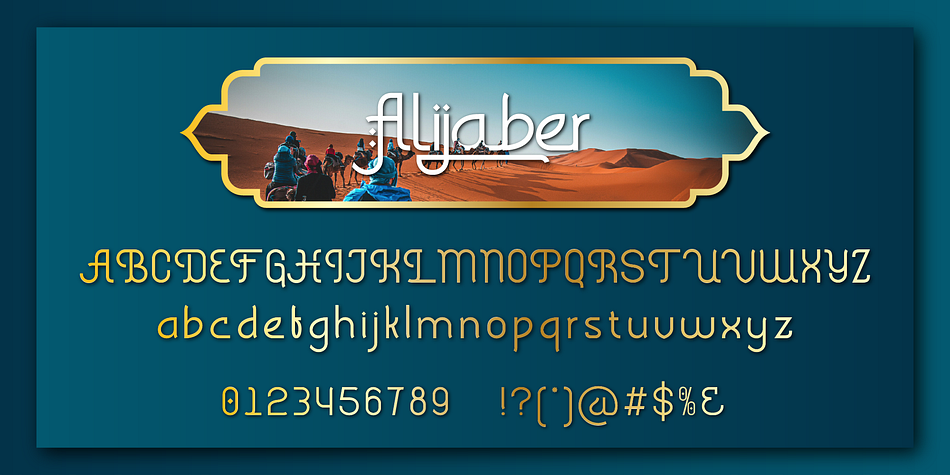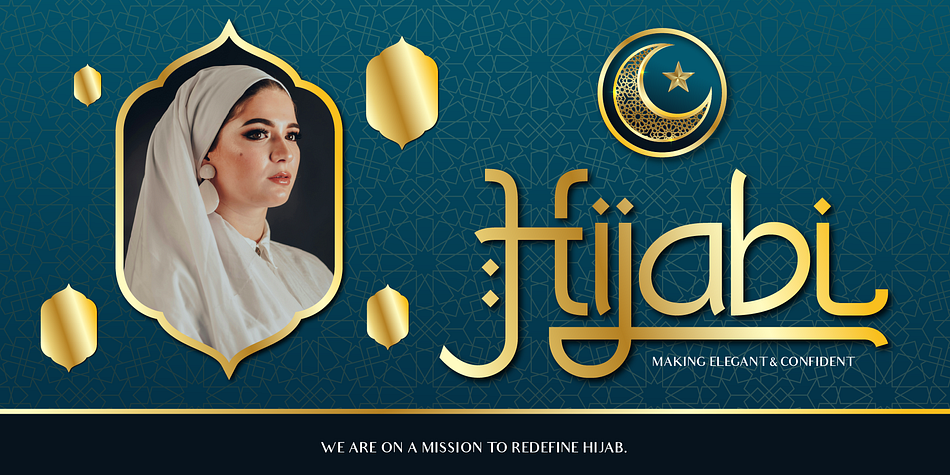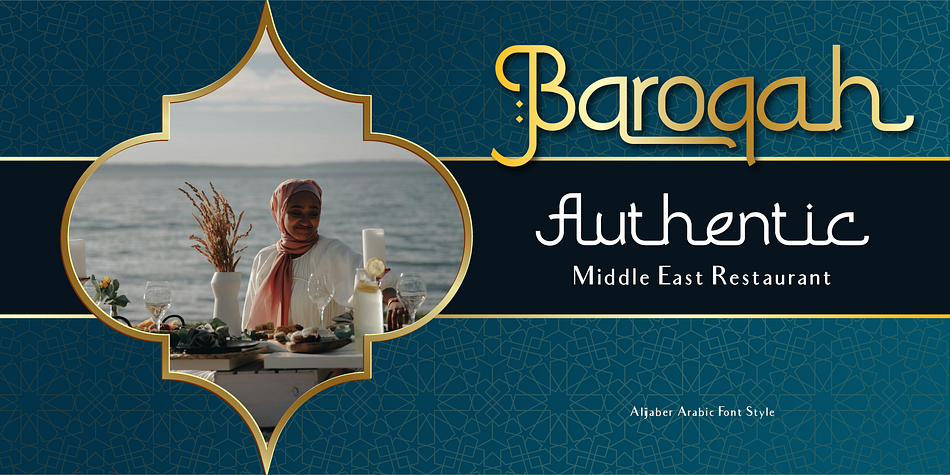
Alijaber
Designed by Eric Kurniawan, Alijaber is an exotic font family. This typeface has two styles and was published by Burntilldead.
Introducing Alijaber, a minimalist Arabic font style. This font uses latin characters, so this font perfect for any design project that need an Arabic, Islamic or middle eastern touch. Not only that, this font has multilingual features, making it suitable for global use. Since this is a sans serif so this font easy to read, modern and timeless. This font have 2 styles: regular and oblique. The ligature and alternates in Alijaber add a middle eastern vibe, makes this font unique and distinctive character. Ideal for logotypes, invitation, cards, branding, headers, letterheads, apparel, magazine, books, and much more.
Features:
- A - Z set (Uppercase & Lowercase)
- Number
- Punctuation
- Alternates
- Ligatures
- Multilingual
Foundry Burntilldead
Style Exotic
Designer Eric Kurniawan